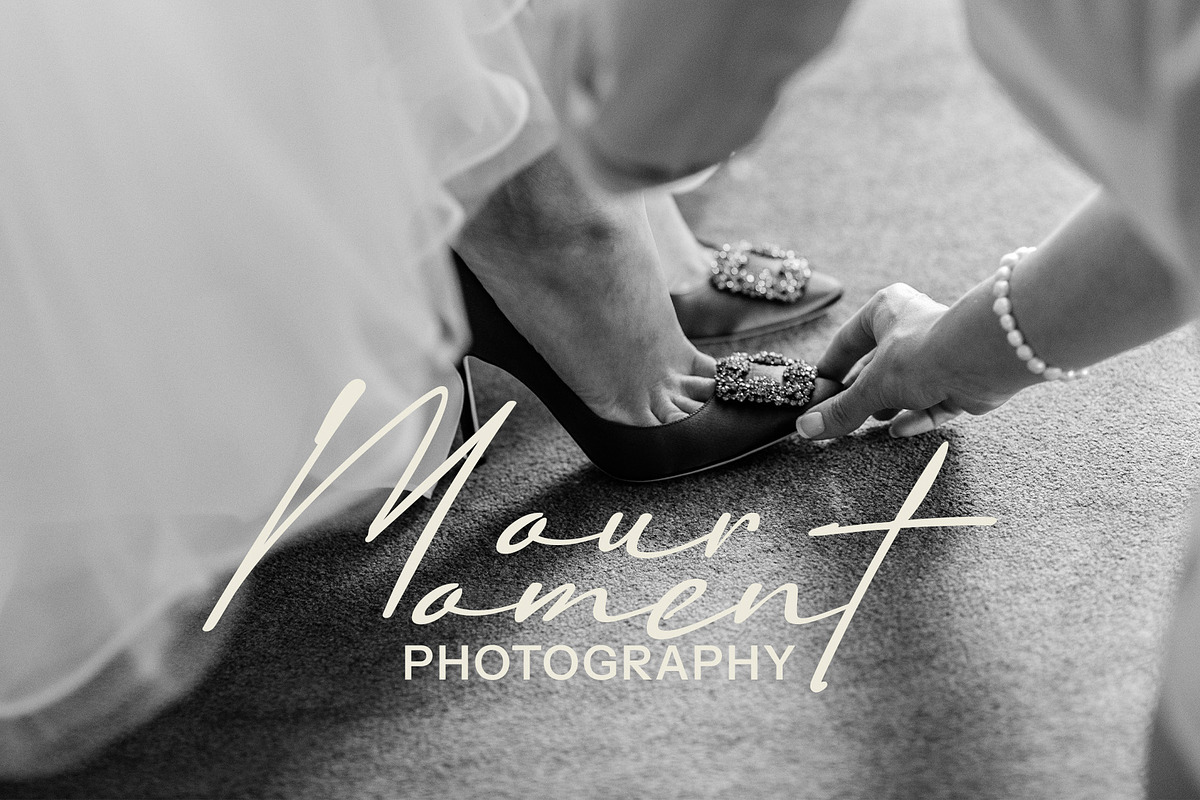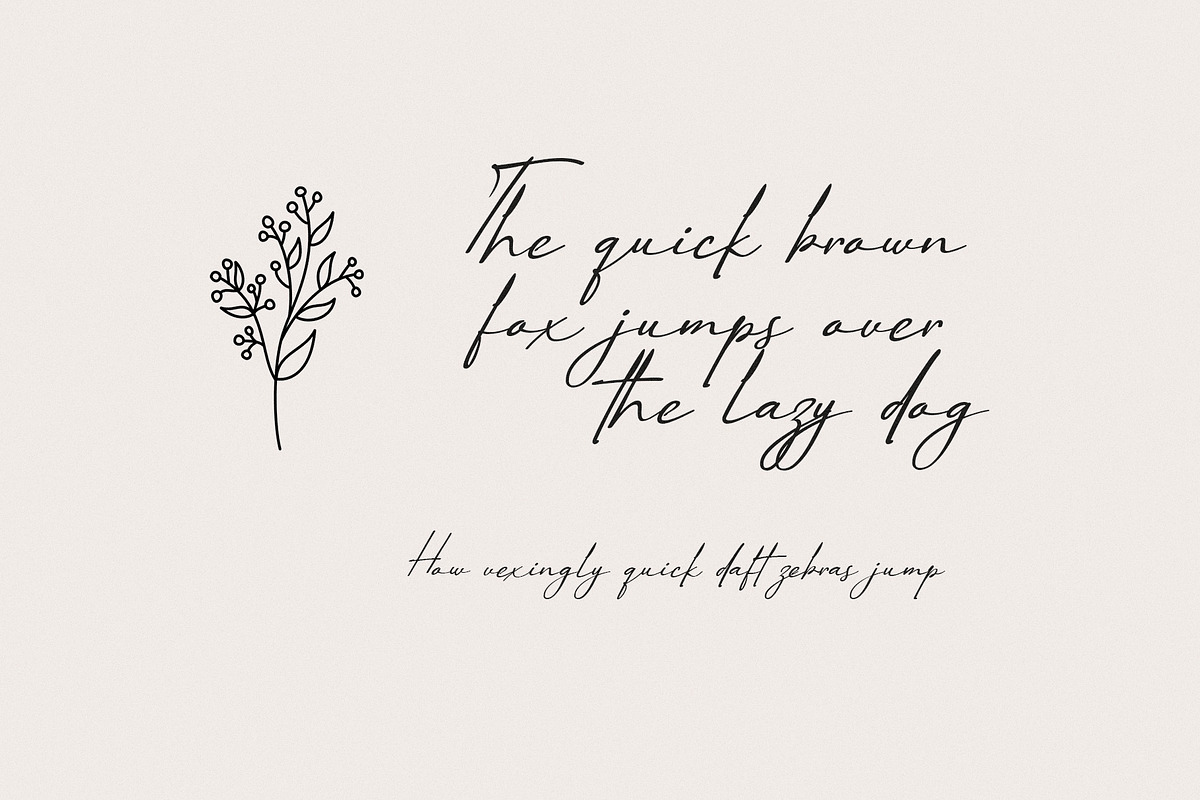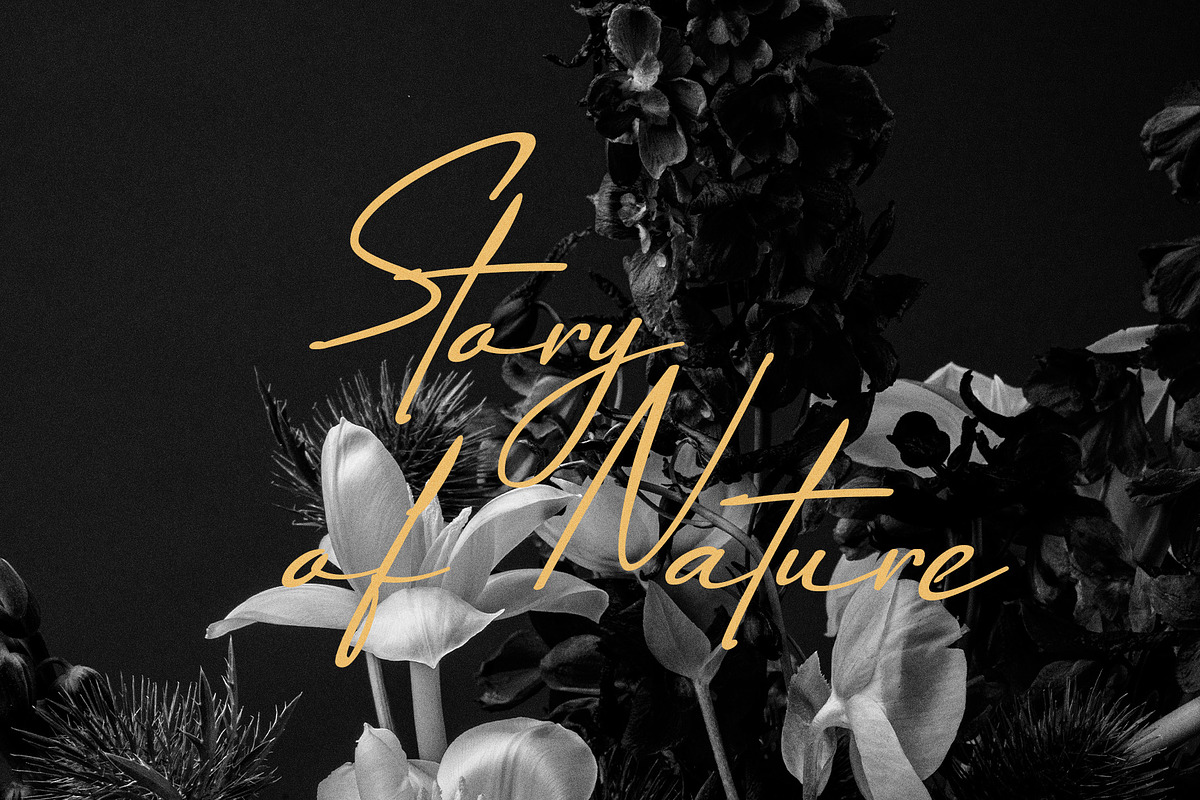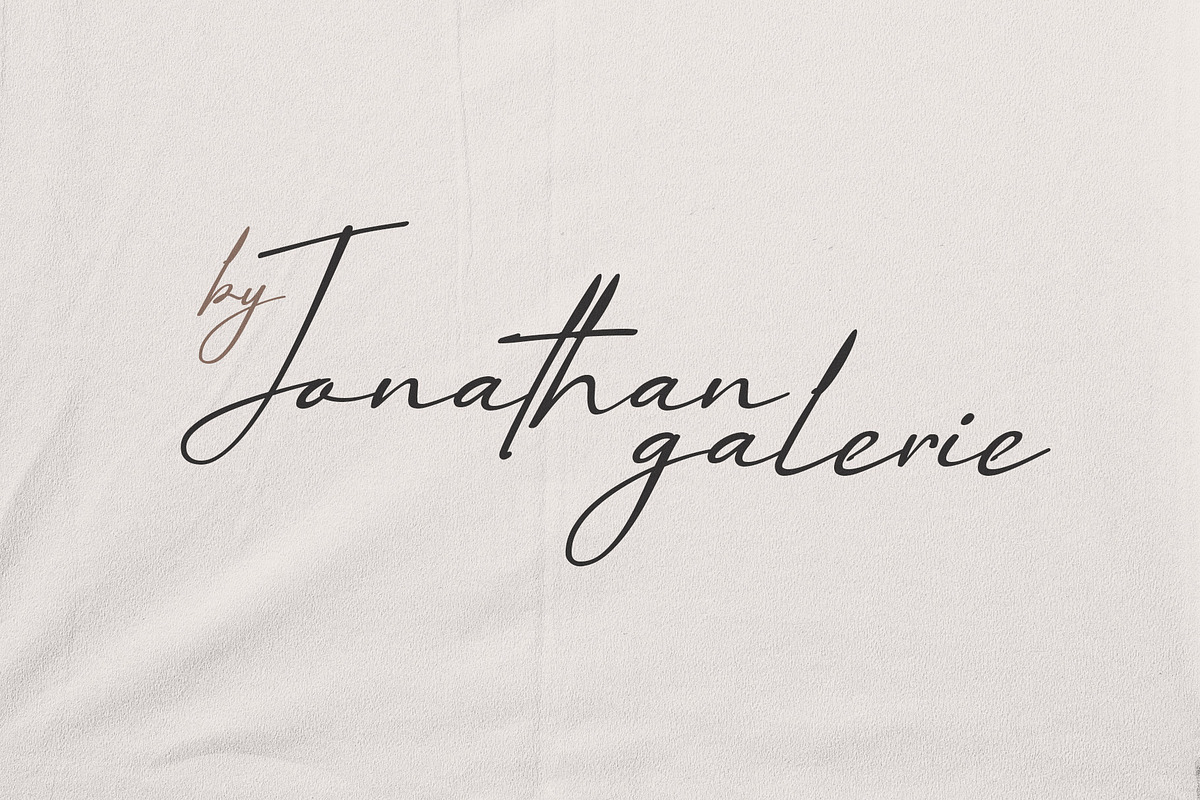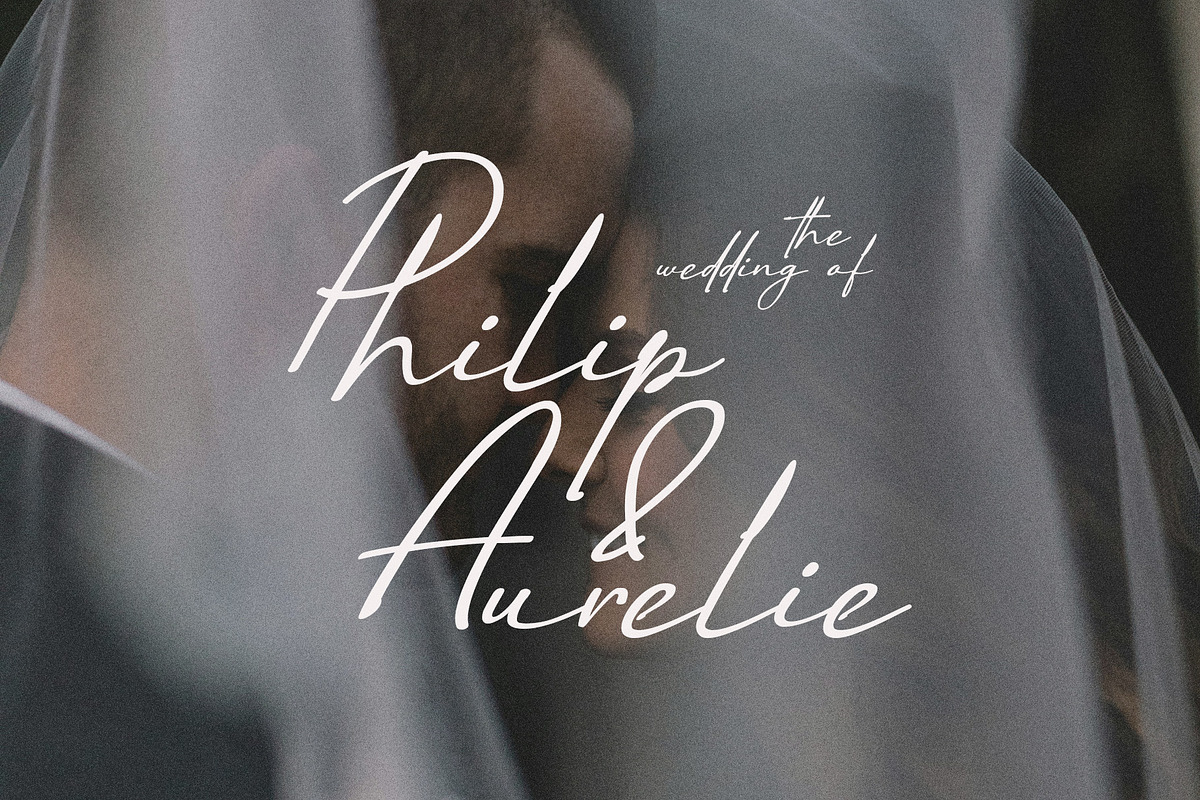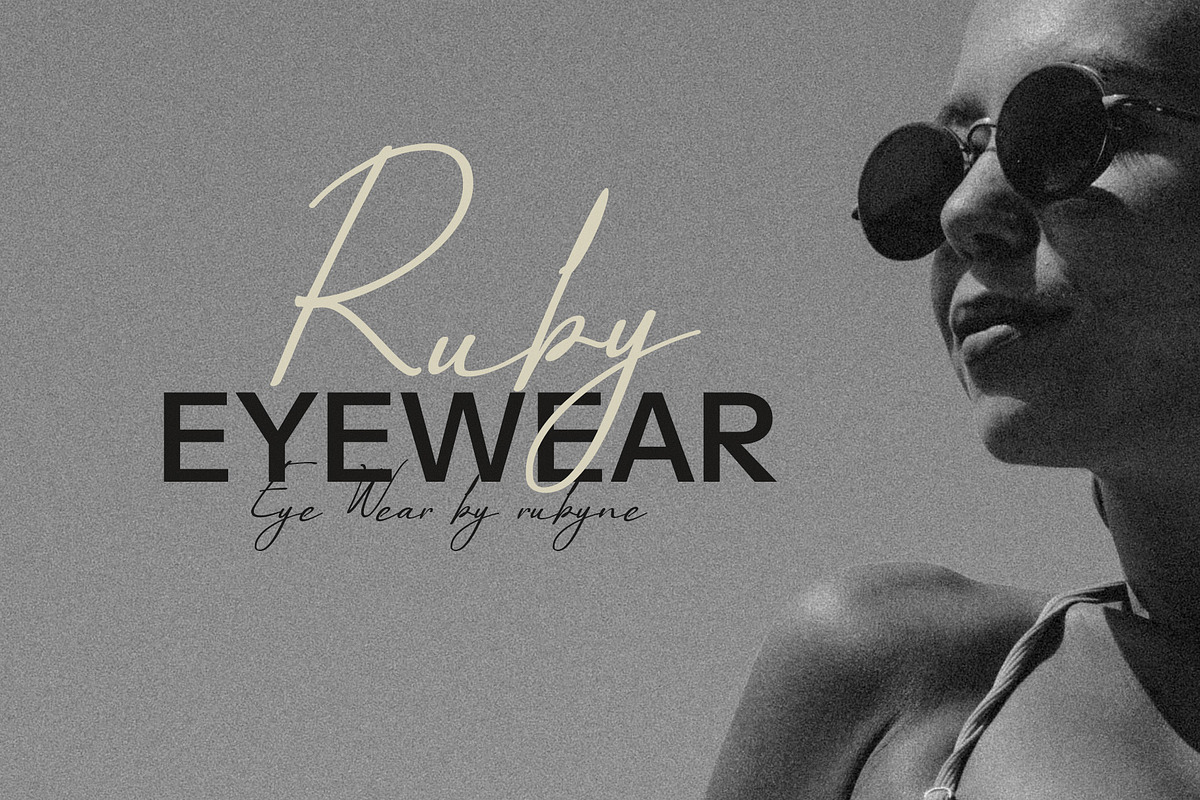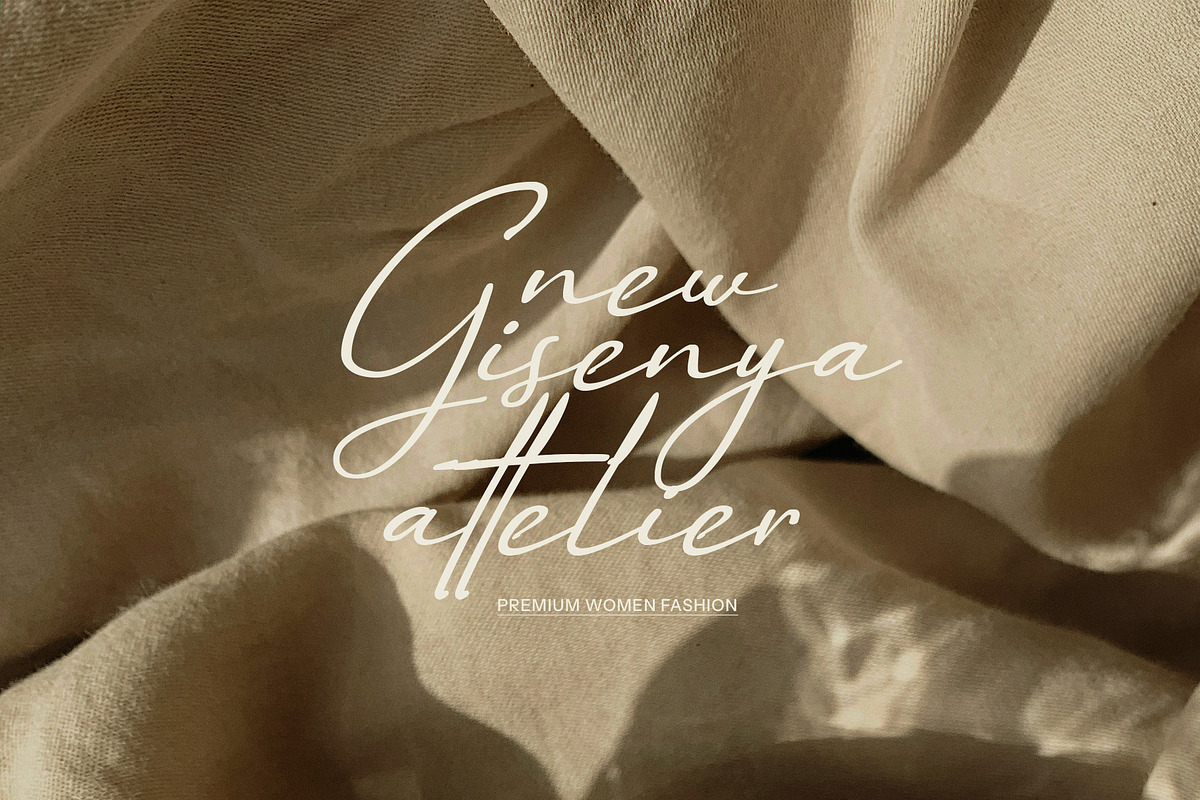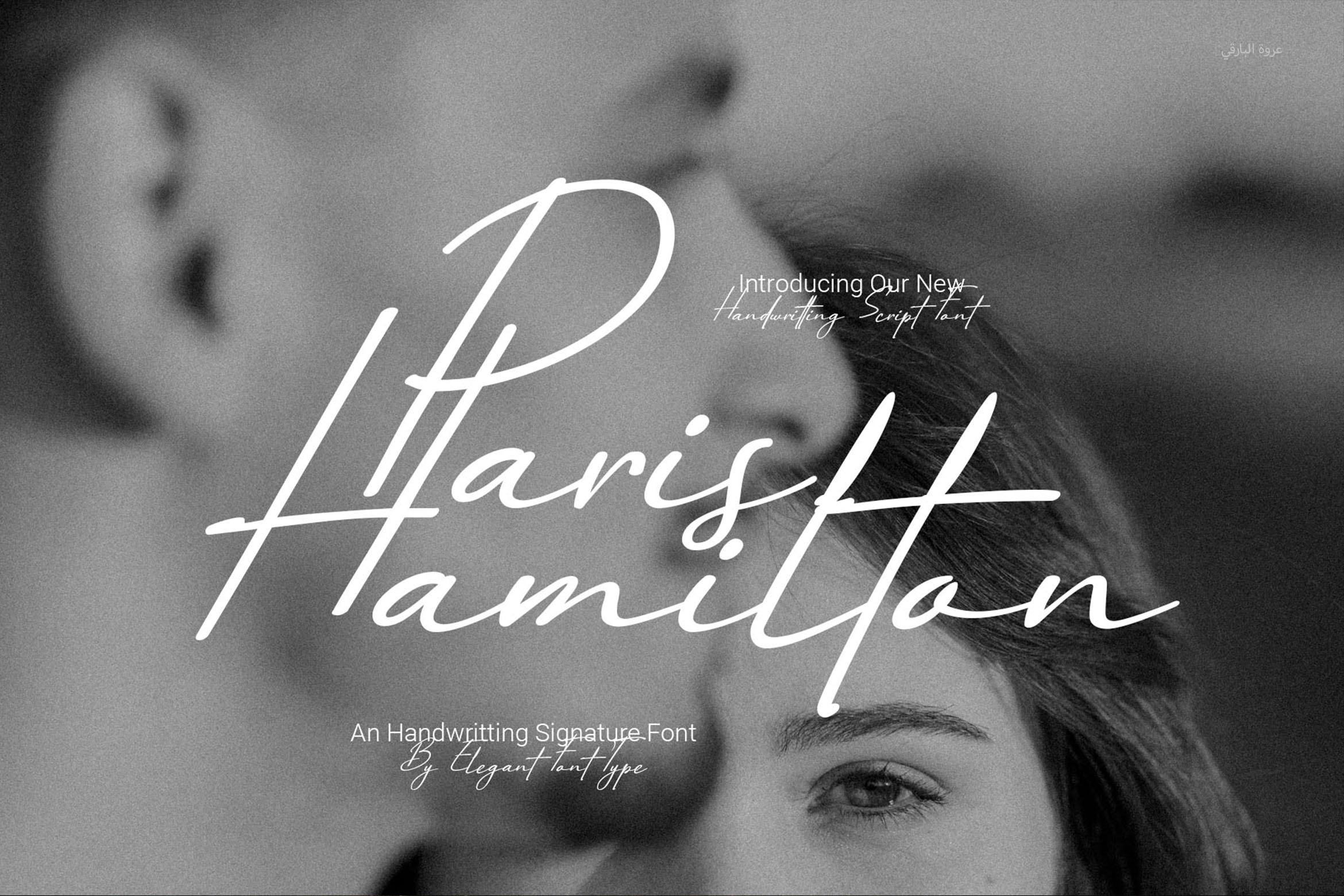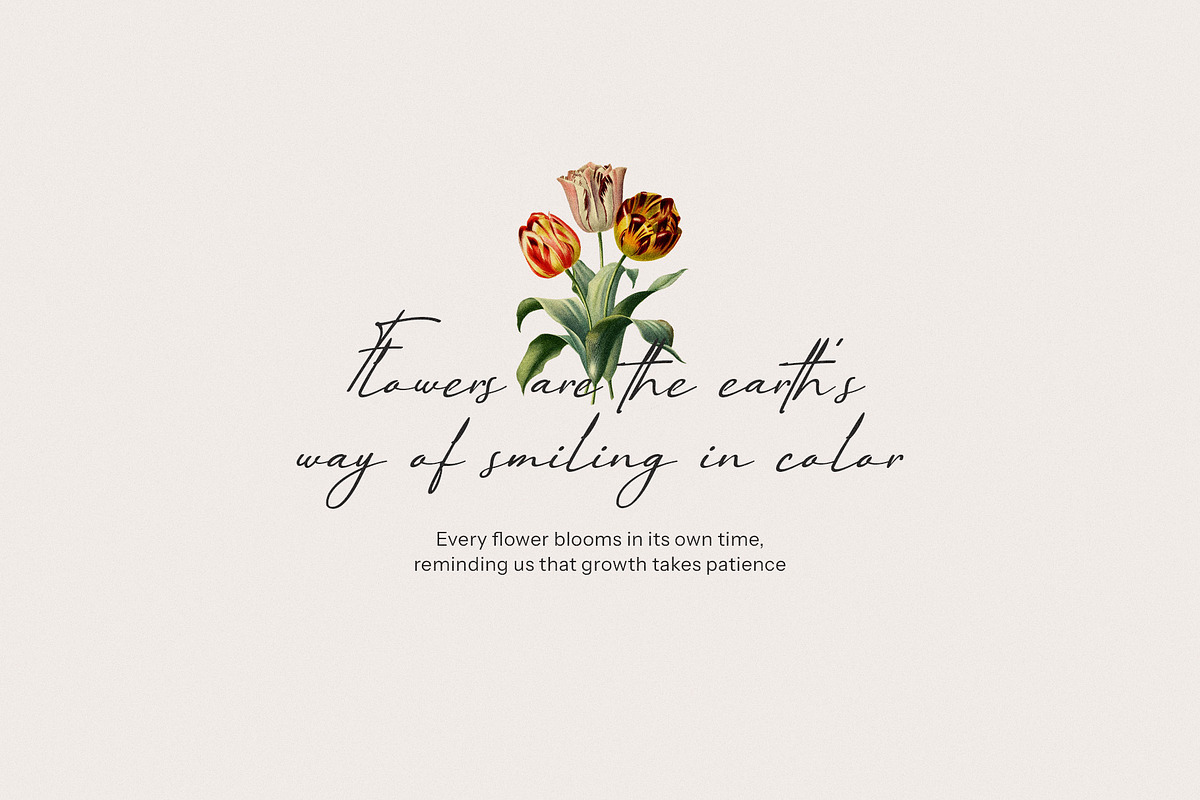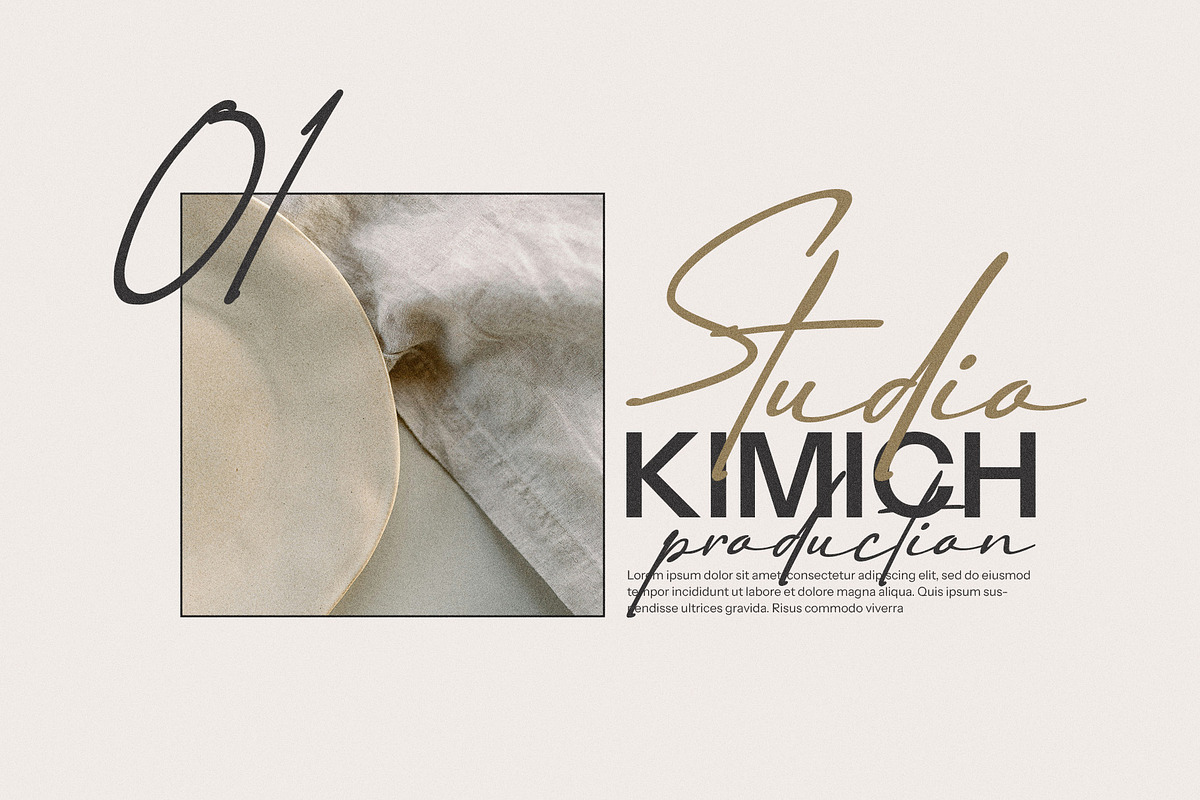
Paris Hamilton Handwritten Font
Paris Hamilton Handwritten Font is a stylish and authentic signature script font that beautifully captures the essence of natural handwriting. Inspired by elegant pen strokes and handwritten notes, this font brings a modern, personal charm to your designs—perfect for creatives who want their work to feel both sophisticated and heartfelt.
Crafted with fluid, organic lines, Paris Hamilton delivers a distinctive look with its unique strokes, graceful flow, and artistic flair. The font includes a stunning range of alternates and ligatures, allowing you to customize each word and bring natural variation to your lettering. This attention to detail gives your typography a handcrafted, signature-style appearance that's ideal for high-end branding and elegant visual storytelling.
Whether you’re designing a chic logo, a romantic wedding invitation, a refined album cover, or a personal business card, Paris Hamilton lends a timeless and professional look to your project. It's also a perfect fit for Canva templates, magazine layouts, social media graphics, music artwork, and website headers. Its soft curves and dynamic style bring emotion and movement into every composition.
From fashion brands and influencers to wedding professionals and creative entrepreneurs, Paris Hamilton Handwritten Font provides the perfect blend of elegance and authenticity. It’s more than just a font—it’s a signature touch that adds warmth, personality, and visual impact to any design.